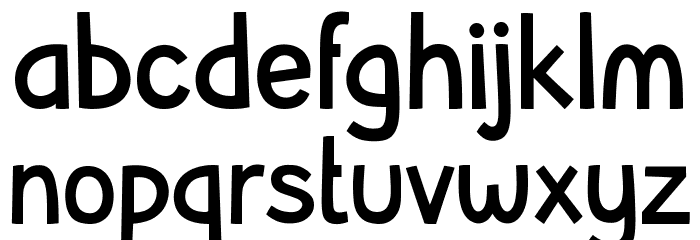
Gembira PERSONAL USE Font
This playful and bold font features a unique and quirky design with slightly irregular shapes that give it a hand-drawn appearance. The uppercase letters are tall and narrow, while the lowercase letters maintain a consistent height, adding to the font's whimsical charm. The strokes are thick and uniform, which enhances readability and makes it suitable for various creative applications. The font lacks traditional serifs, giving it a modern and casual feel. Its distinctive style is perfect for projects that require a fun and informal touch.
A playful, bold font with a hand-drawn, quirky style.
- Proposed Projects: Ideal for children's books, playful branding, greeting cards, and creative posters.
- Overall Style: Playful, Modern